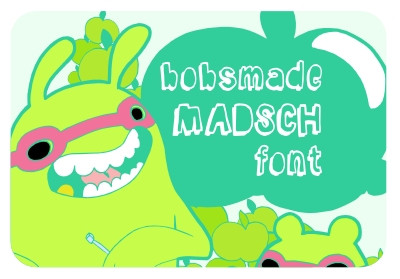
Bobsmade β€” Madsch font
This is a nice, unique font!~
Wow, this is a very cute font! Thanks!
Everyone loves this style of letter!
cute font
It's so cute ^.^
It looks so fresh
that was a wacky yet cute font XD
It's So Cute !
Really looks like StarguidesFont